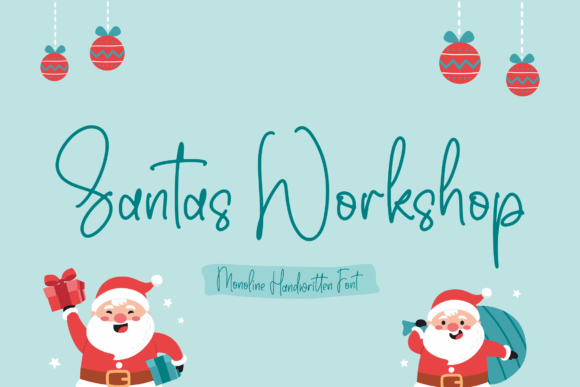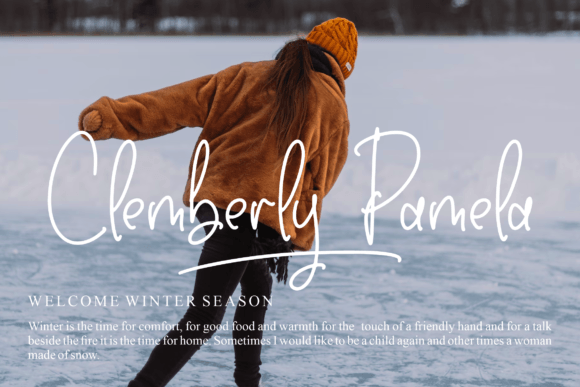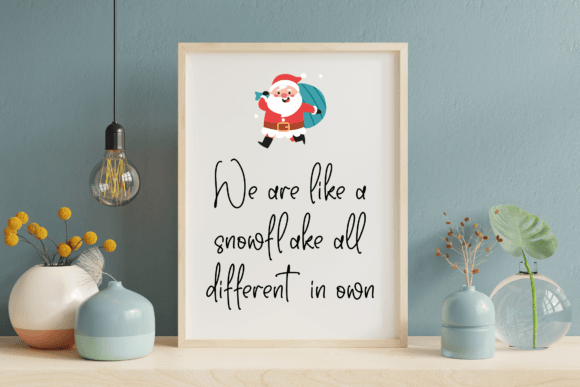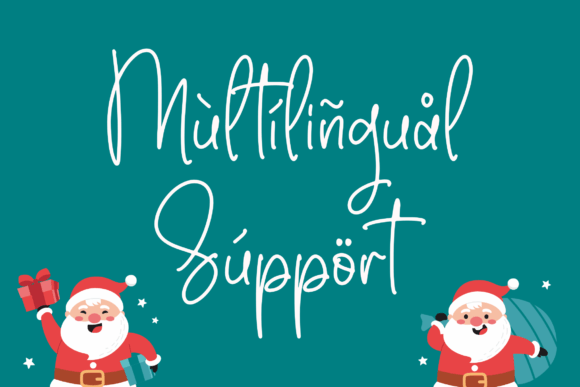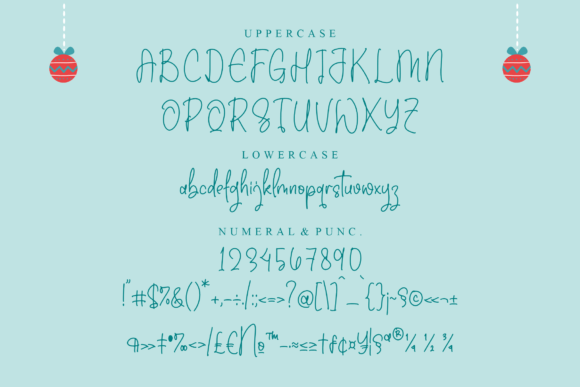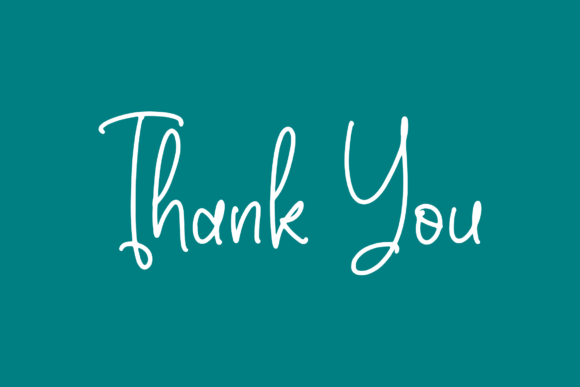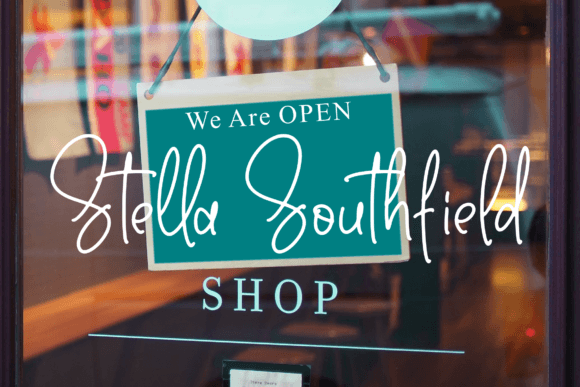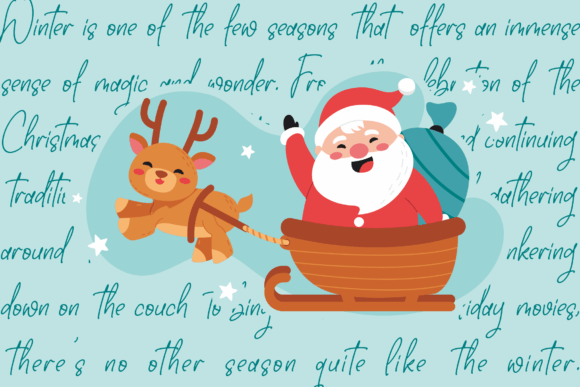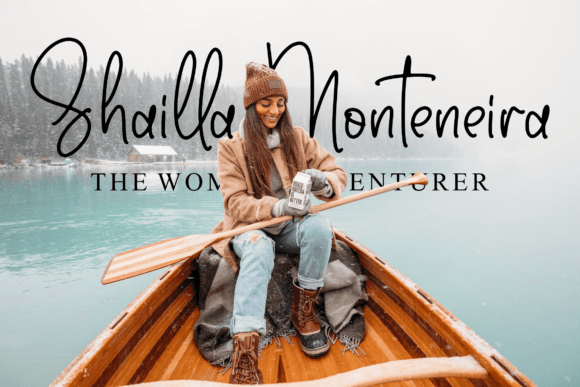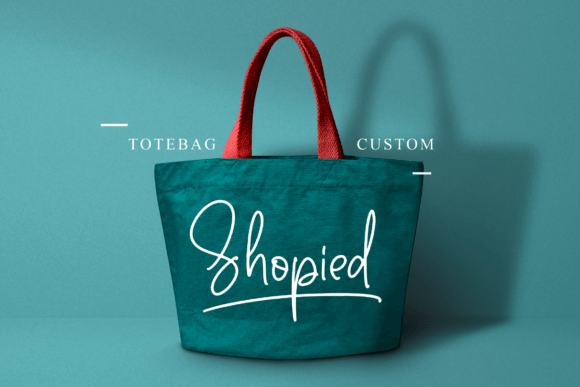
Santas Workshop Font
About Santas Workshop Font
The Santas Workshop Font Download is a monoline handwritten script designed to bring warmth, elegance, and creativity to your projects. With its smooth, consistent strokes and charming handwritten style, this typeface adds a personal yet professional touch to designs across a wide spectrum of applications.
Crafted for versatility, Santas Workshop works beautifully in both formal and casual settings. Whether you’re creating logos, invitations, posters, product packaging, apparel, or social media graphics, this font adapts effortlessly while maintaining a polished and stylish look. Its clean monoline structure makes it easy to read while still carrying the character of natural handwriting.
Features of Santas Workshop Font
• Monoline handwritten script style for smooth and consistent lettering
• Balanced strokes and elegant curves for timeless appeal
• Complete character set with uppercase, lowercase, numbers, and punctuation
• Professional readability for digital and print designs
• Versatility for personal, professional, and creative projects
Best Uses for Santas Workshop Font
The Santas Workshop Font Download can elevate a wide range of design applications, such as:
• Logos and branding – Perfect for artisan businesses, boutiques, and lifestyle brands
• Wedding invitations and stationery – Add a personal handwritten charm to special occasions
• Product packaging – Stylish typography for handmade goods, cosmetics, or gourmet products
• Apparel and merchandise – Great for t-shirts, tote bags, and custom clothing designs
• Posters and flyers – Standout text for events, celebrations, and promotions
• Social media graphics – Add a friendly, stylish touch to Instagram and Pinterest visuals
• Book covers and labels – Elegant script for publications and product branding
• Event signage and photography watermarks – Professional yet creative handwritten accents
Why Choose Santas Workshop Font
The Santas Workshop Font Download is loved by designers for its balance of simplicity and elegance. Its monoline structure makes it stand out from ornate script fonts while still offering a warm handwritten aesthetic. This unique combination makes it ideal for projects that need clarity and personality at the same time.
Unlike many handwritten fonts, Santas Workshop maintains consistency and flow, ensuring smooth readability across all media. Its versatile design allows it to move seamlessly between creative, professional, and personal projects, making it a must-have font for any designer’s toolkit.
The Santas Workshop Font Download is a monoline handwritten script that combines warmth, creativity, and elegance. With its smooth strokes, timeless style, and wide range of applications, it’s the perfect typeface for invitations, logos, branding, packaging, apparel, posters, and more.